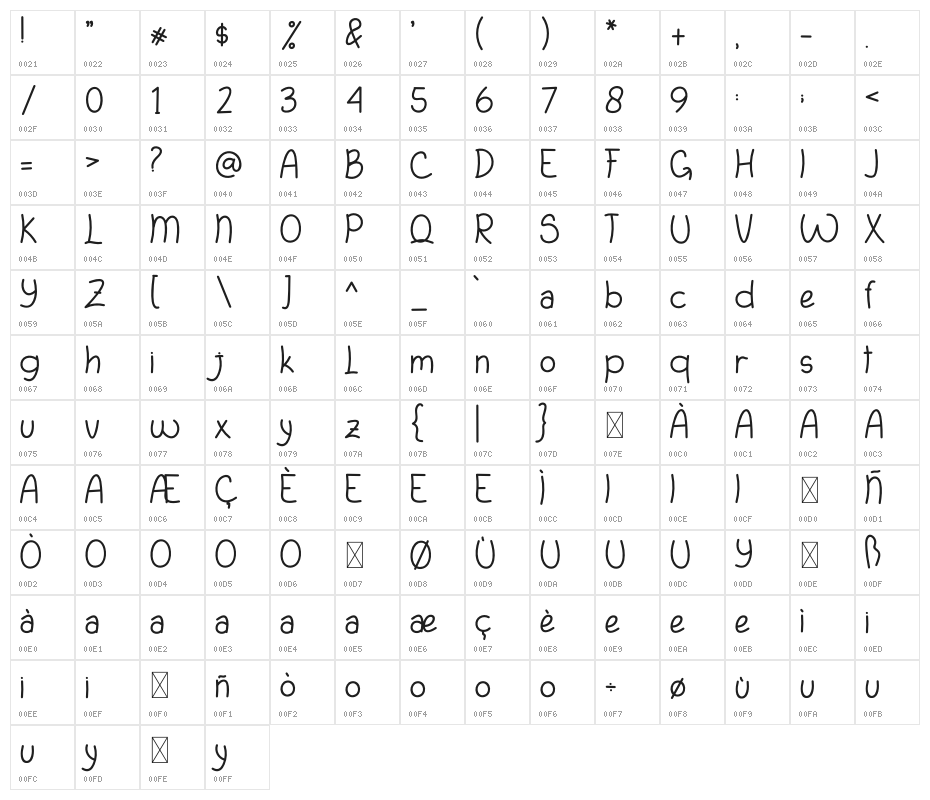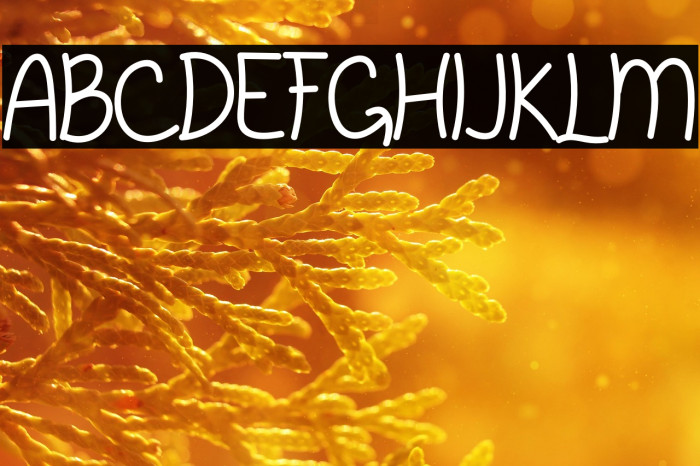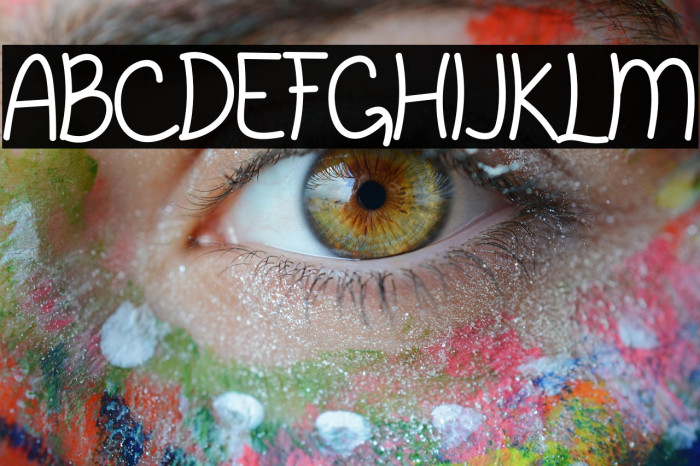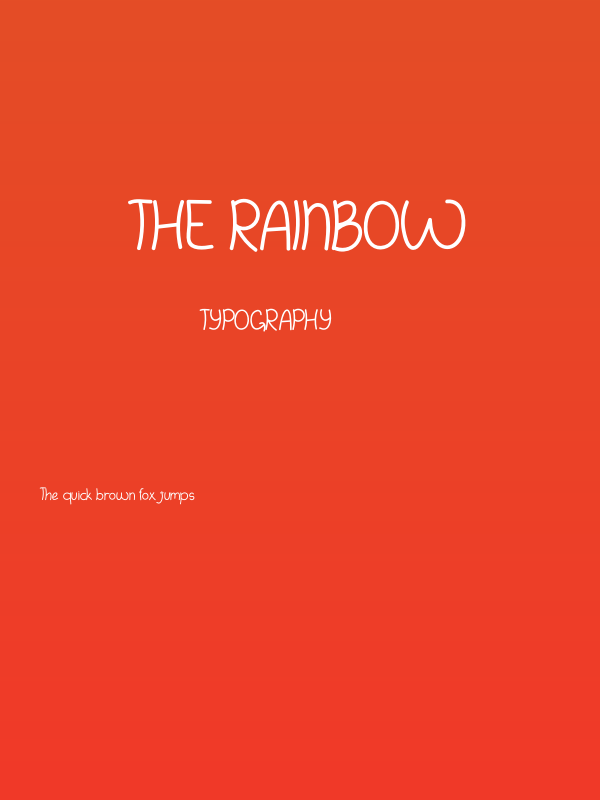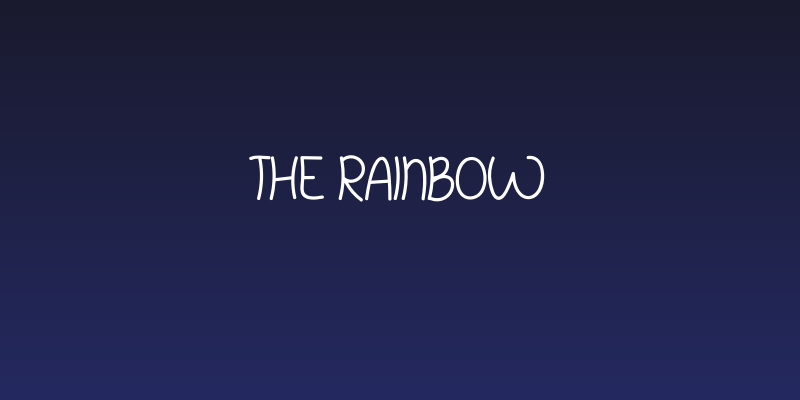
The Rainbow Font
The Rainbow Description
A playful, handwritten font with a casual and friendly appearance. The letters are slightly irregular, adding a whimsical touch.
| Overall Style | Casual, Whimsical |
| Use Case | Headlines, Informal text |
| Proposed Projects | Children's books, greeting cards, informal invitations. |